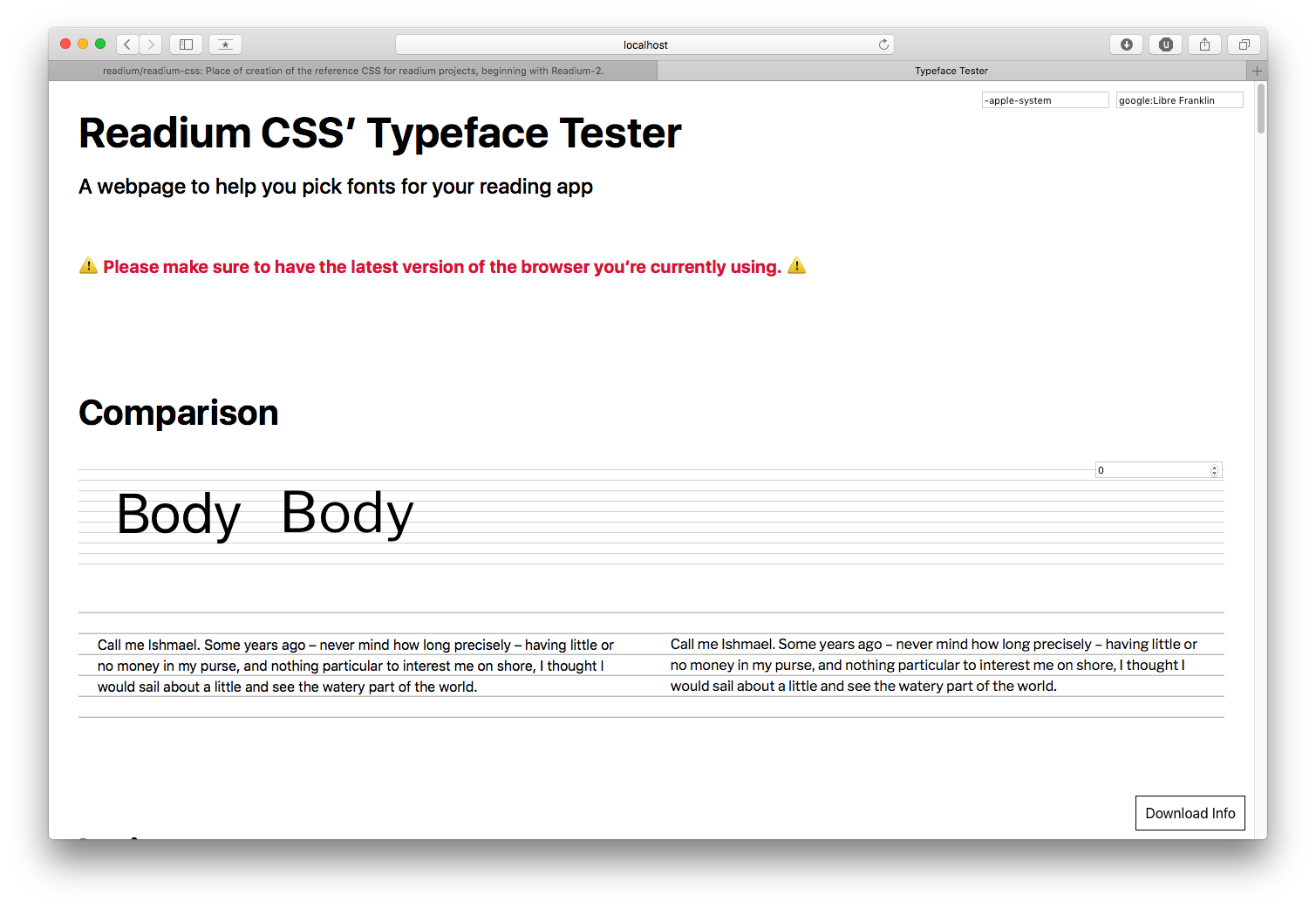
While we recommend using system fonts to get the best performance whenever possible, implementers might want to use Open Source Fonts to offer more choice to users. On the Android platform, for instance, system fonts are limited to one typeface per generic family (serif, sans-serif, fantasy, monospace, and cursive), which means implementers donāt get a lot of options out of the box.
Consequently, amongst the thousands of fonts available online, a pre-selection of 27 typefaces have been reviewed extensively. Those typefaces were selected based on multiple factors:
regular, italic, bold, bold italic) so that implementers donāt break authorsā expectations;Hereās the complete list of those 27 fonts:
Each of the 27 fonts has been undergoing tests in real rendering situations.
They were rendered on the Android, iOS, MacOS, and Windows platforms, using SD and HD displays when possible, in multiple browsers (Edge, Safari, Chrome, Firefox), and in different themes (none, sepia and night).
Then each font was:
It is important to state that implementers canāt really go wrong with those 27 fonts.
We sometimes forget that users canāt necessarily afford bleeding-edge technology, which is why it was important to review those fonts in various conditions.
The 12 recommended fonts are simply providing the best rendering in the worst situations possible (Windows ClearType on a mediocre screen), and the best language support as well. If you donāt have to support Windows, for instance, then you can try fonts which are not recommended.
For your information, here are the results for Windows ClearType rendering at 1em (or 100%).
An extended selection of 13 typefaces are recommended to offer implementers some flexibility. With an extended solution, it is likely that all apps leveraging Readium CSS wonāt end up using the same exact selection.
Note: Supported Languages focus on diacritics. Support for languages using the latin alphabet, like English, is implied.
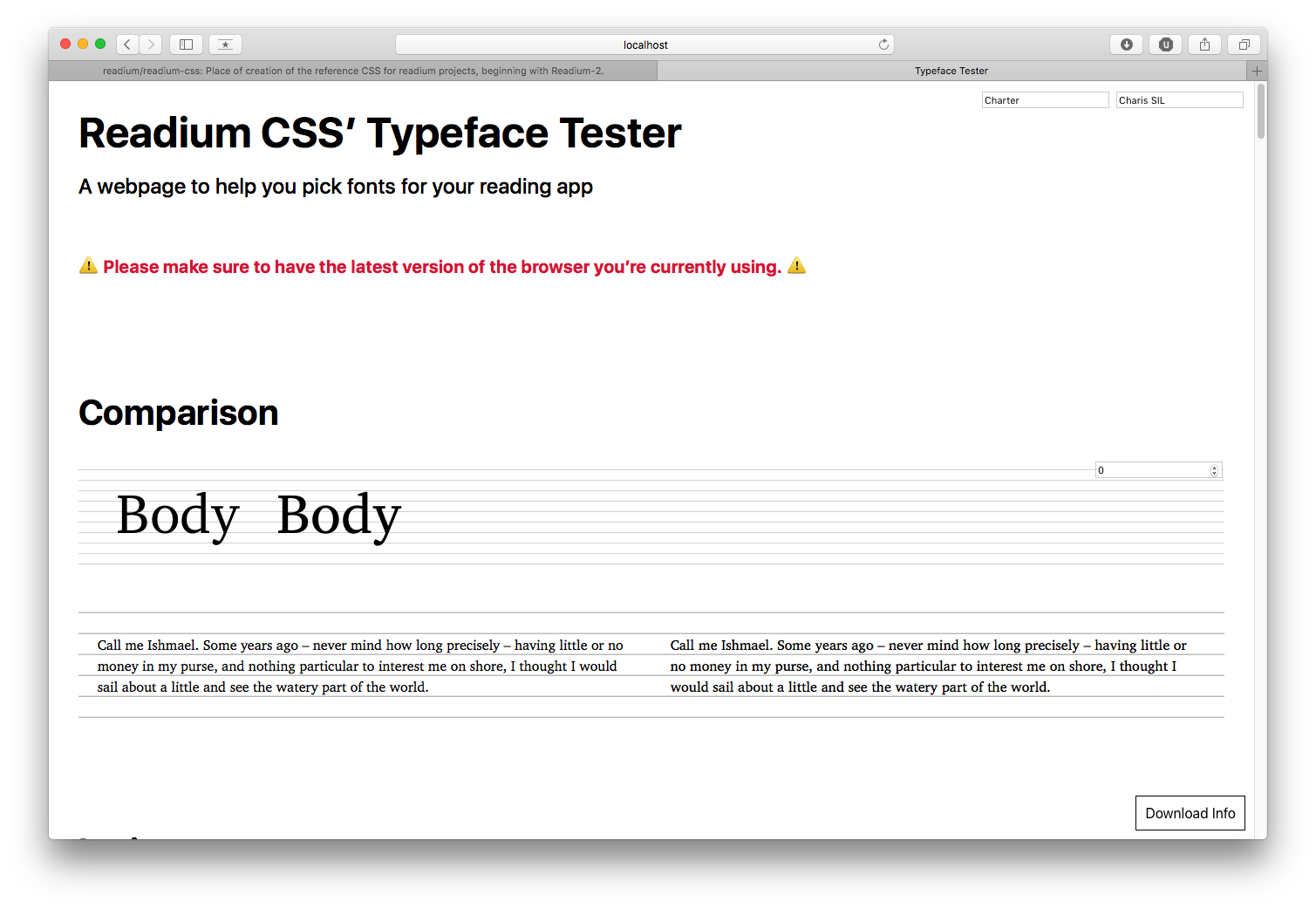
Supported Languages: Albanian, Bosnian, Czech, Danish, Dutch, Estonian, Finnish, French, German, Hungarian, Italian, Latvian, Lithuanian, Norwegian, Polish, Portuguese, Romanian, Slovak, Slovenian, Spanish, Swedish, Turkish, Cyrillic.
OpenType Features: none.
Variations: none.
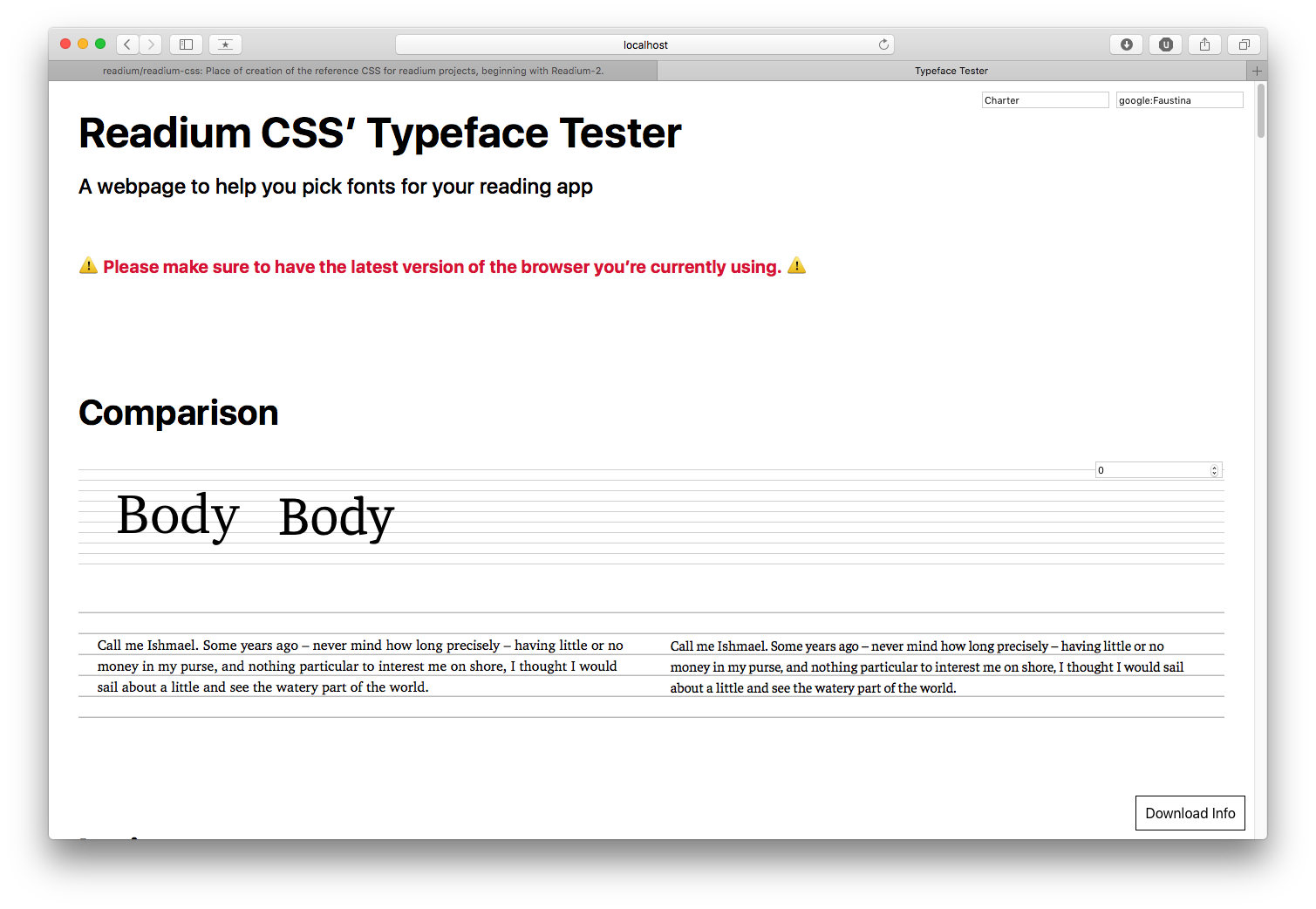
Supported Languages: Albanian, Bosnian, Czech, Danish, Dutch, Estonian, Finnish, French, German, Hungarian, Italian, Latvian, Lithuanian, Norwegian, Polish, Portuguese, Romanian, Slovak, Slovenian, Spanish, Swedish, Turkish.
OpenType Features: none.
Variations: weight (300ā800).
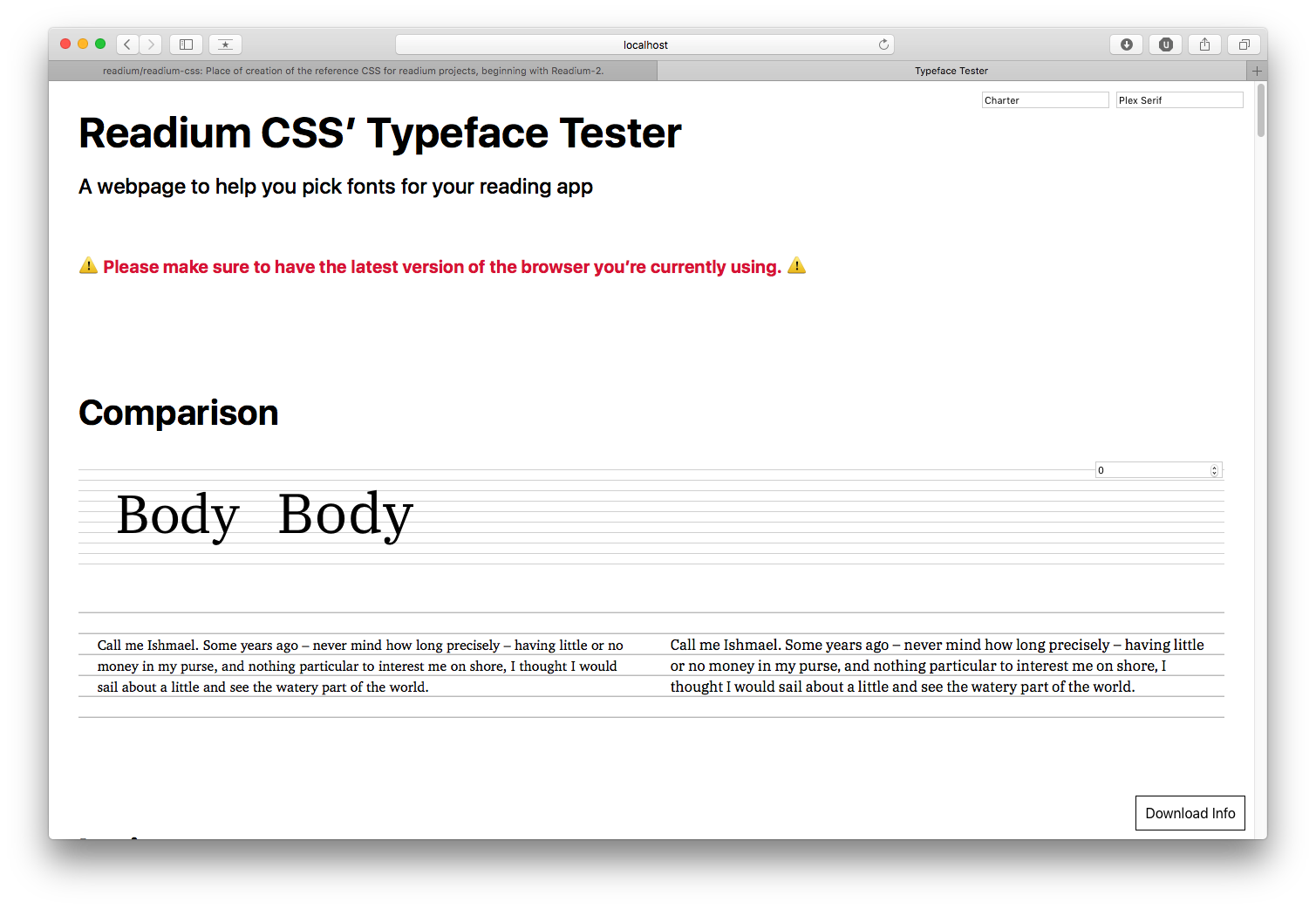
Supported Languages: Albanian, Bosnian, Czech, Danish, Dutch, Estonian, Finnish, French, German, Hungarian, Italian, Latvian, Lithuanian, Norwegian, Polish, Portuguese, Romanian, Slovak, Slovenian, Spanish, Swedish, Turkish.
OpenType Features: none.
Variations: none.
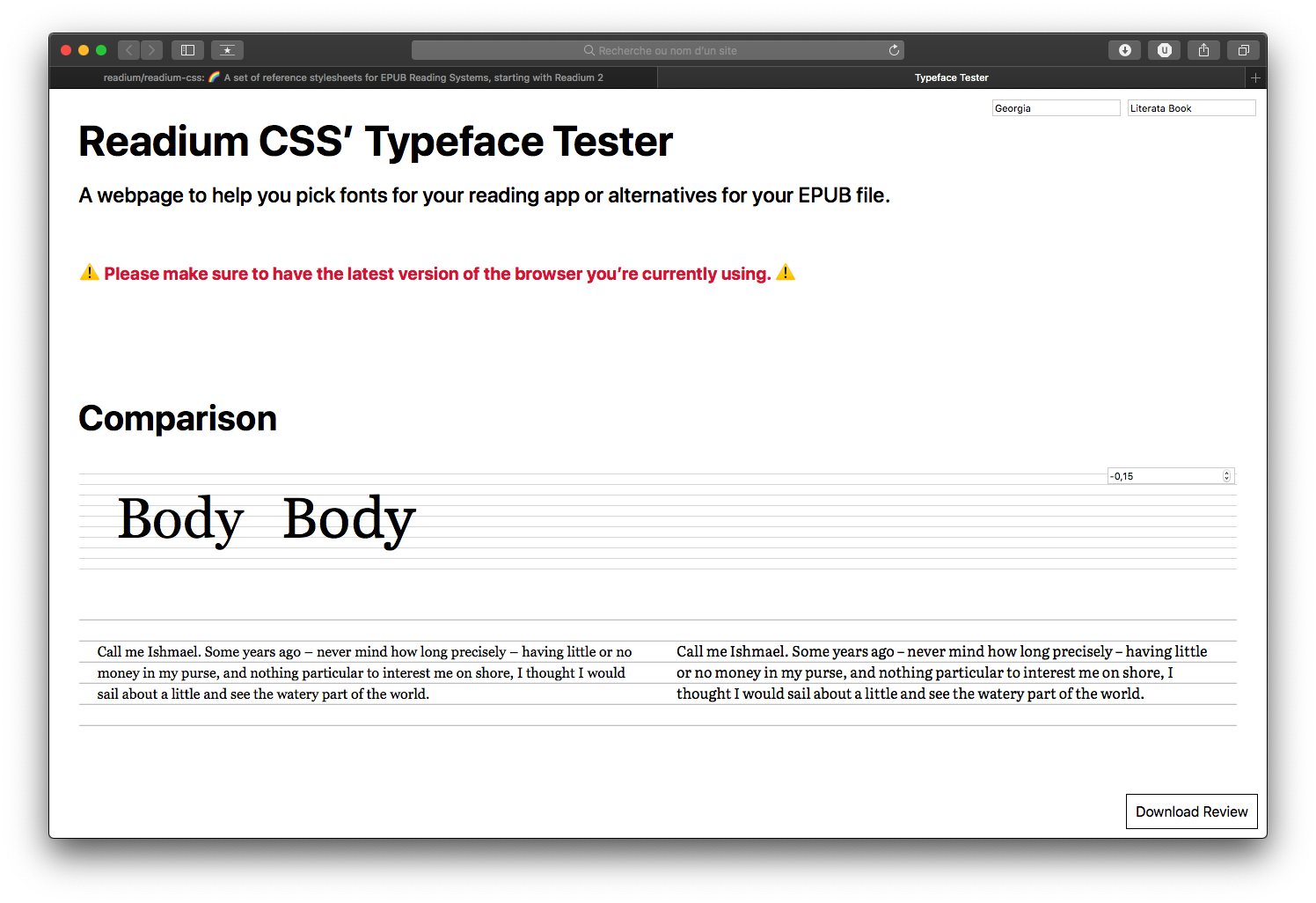
Supported Languages: Albanian, Bosnian, Czech, Danish, Dutch, Estonian, Finnish, French, German, Hungarian, Italian, Latvian, Lithuanian, Norwegian, Polish, Portuguese, Romanian, Slovak, Slovenian, Spanish, Swedish, Turkish, Cyrillic, Greek.
OpenType Features: small caps, numeric figure values, numeric spacing values.
Variations: optical sizing, weight (200ā900).
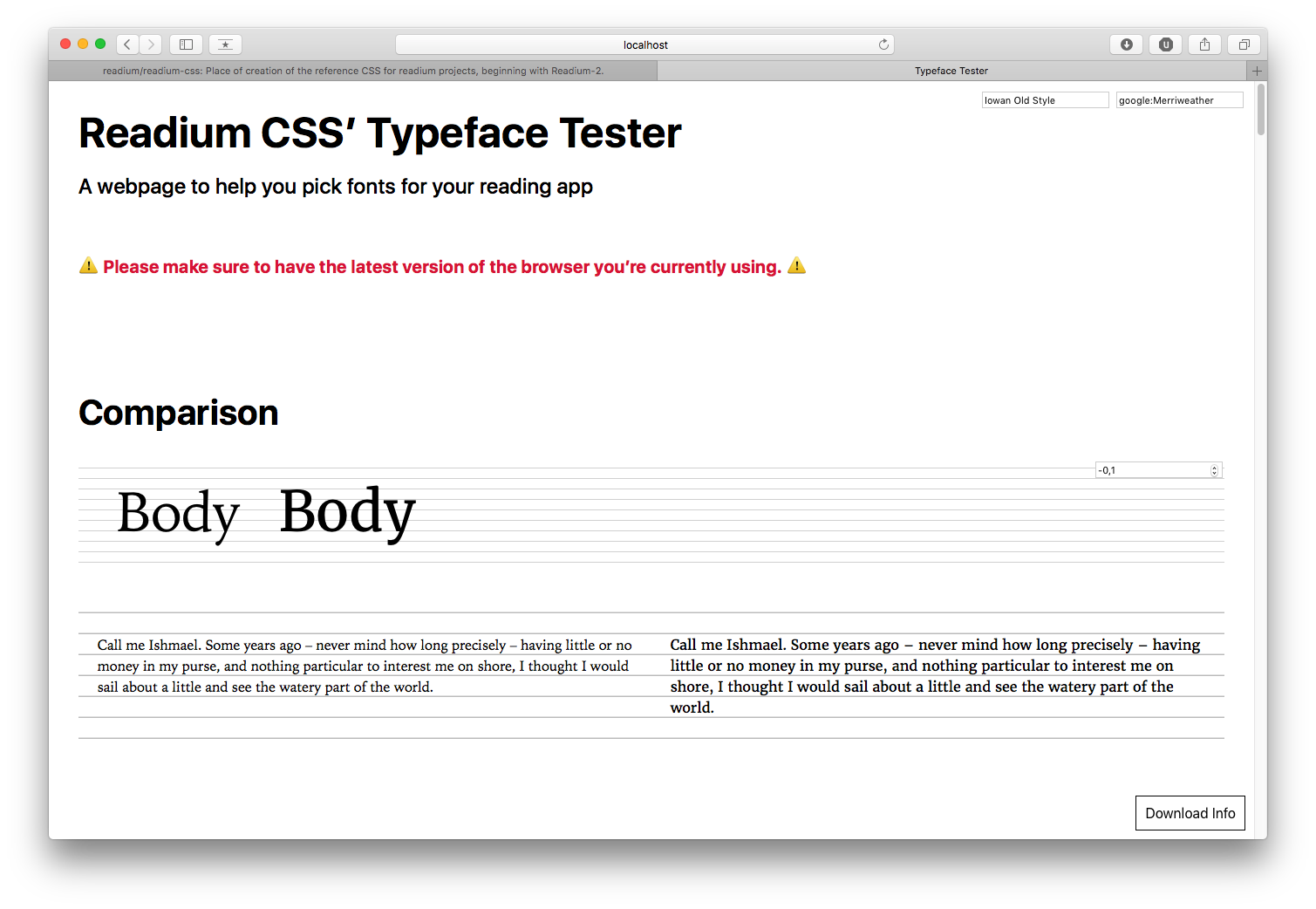
Supported Languages: Albanian, Bosnian, Czech, Danish, Dutch, Estonian, Finnish, French, German, Hungarian, Italian, Latvian, Lithuanian, Norwegian, Polish, Portuguese, Romanian, Slovak, Slovenian, Spanish, Swedish, Turkish, Cyrillic.
OpenType Features: none.
Variations: none.
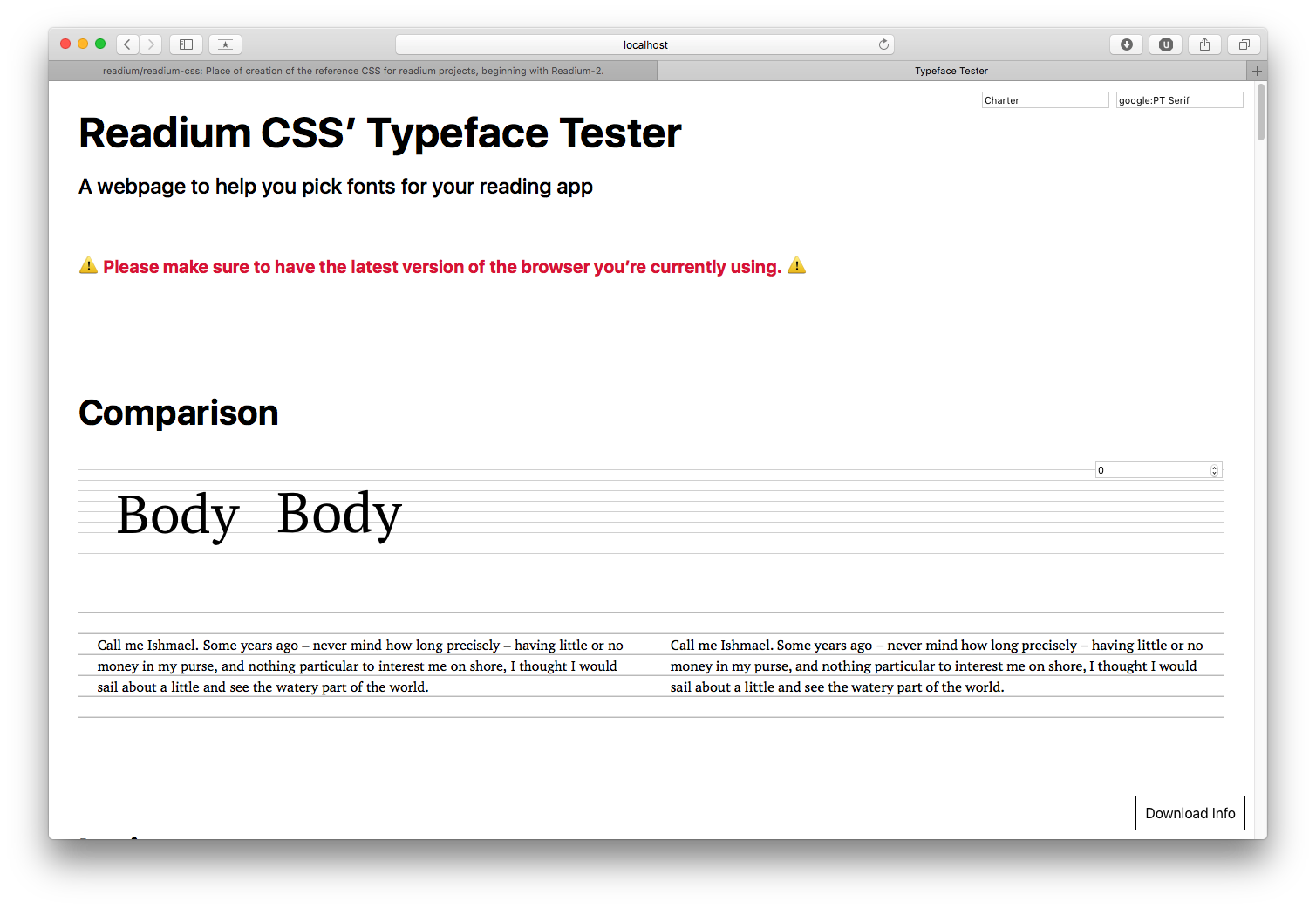
Global info:
Technical details:
Supported Languages: Albanian, Bosnian, Czech, Danish, Dutch, Estonian, Finnish, French, German, Hungarian, Italian, Latvian, Lithuanian, Norwegian, Polish, Portuguese, Romanian, Slovak, Slovenian, Spanish, Swedish, Turkish, Cyrillic.
OpenType Features: none.
Variations: none.
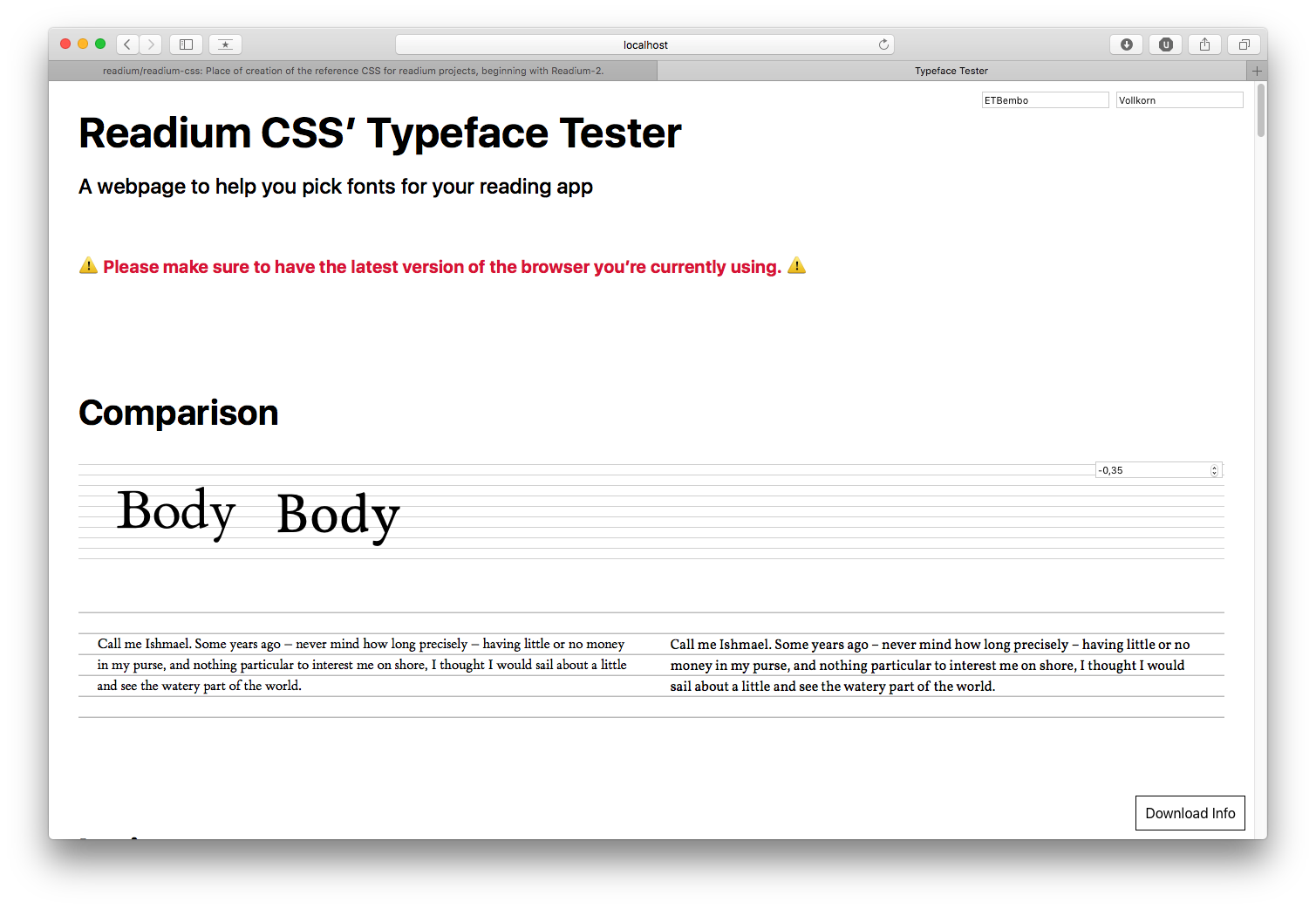
Global info:
Technical details:
Supported Languages: Albanian, Bosnian, Czech, Danish, Dutch, Estonian, Finnish, French, German, Hungarian, Italian, Latvian, Lithuanian, Norwegian, Polish, Portuguese, Romanian, Slovak, Slovenian, Spanish, Swedish, Turkish, Cyrillic.
OpenType Features: small caps, numeric figure values, numeric spacing values (and more).
Variations: weight (400ā900).
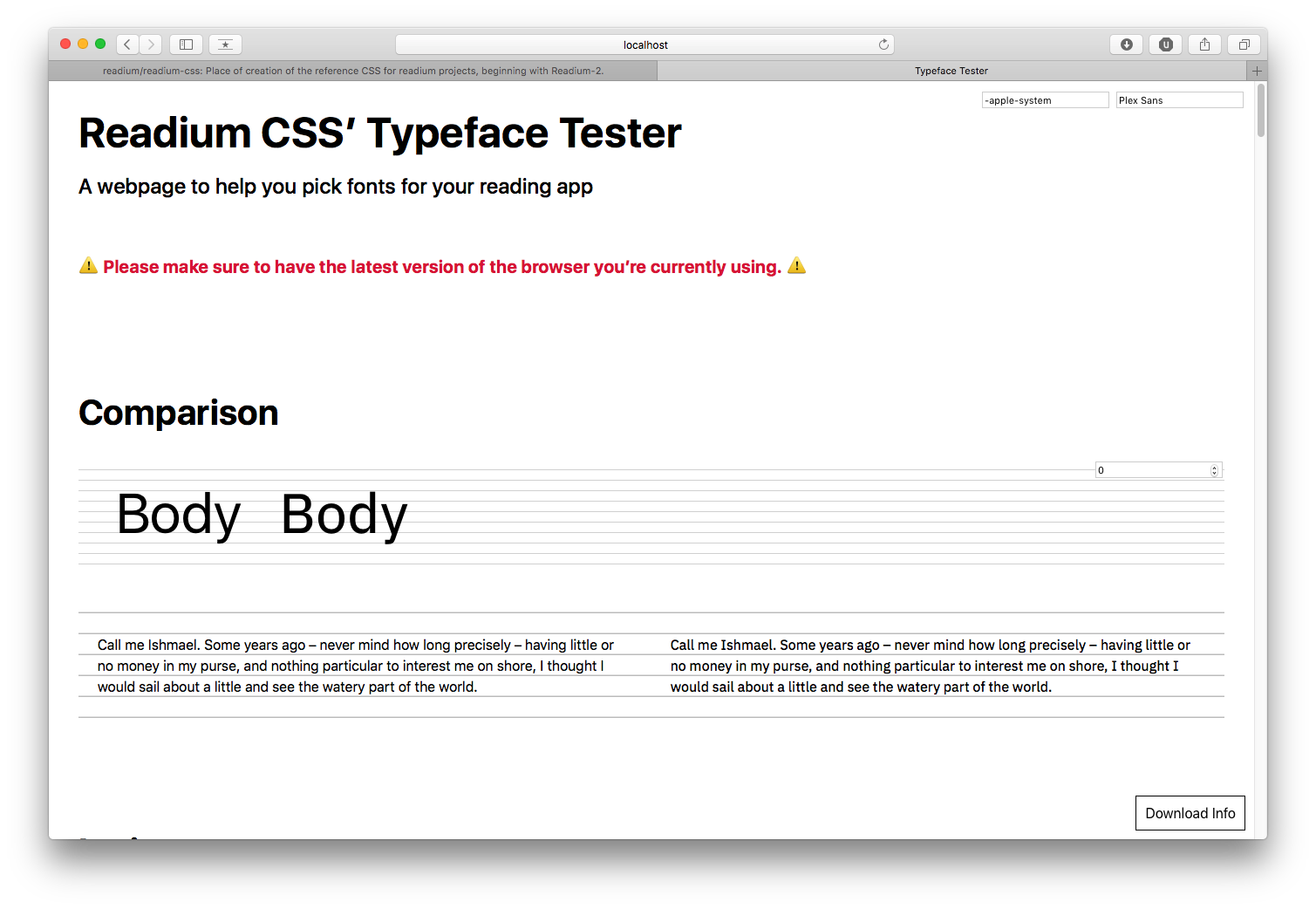
Global info:
Technical details:
Supported Languages: Albanian, Bosnian, Czech, Danish, Dutch, Estonian, Finnish, French, German, Hungarian, Italian, Latvian, Lithuanian, Norwegian, Polish, Portuguese, Romanian, Slovak, Slovenian, Spanish, Swedish, Turkish, Cyrillic, Greek.
OpenType Features: numeric figure values, numeric spacing values.
Variations: weight (100ā700), width (85ā100).
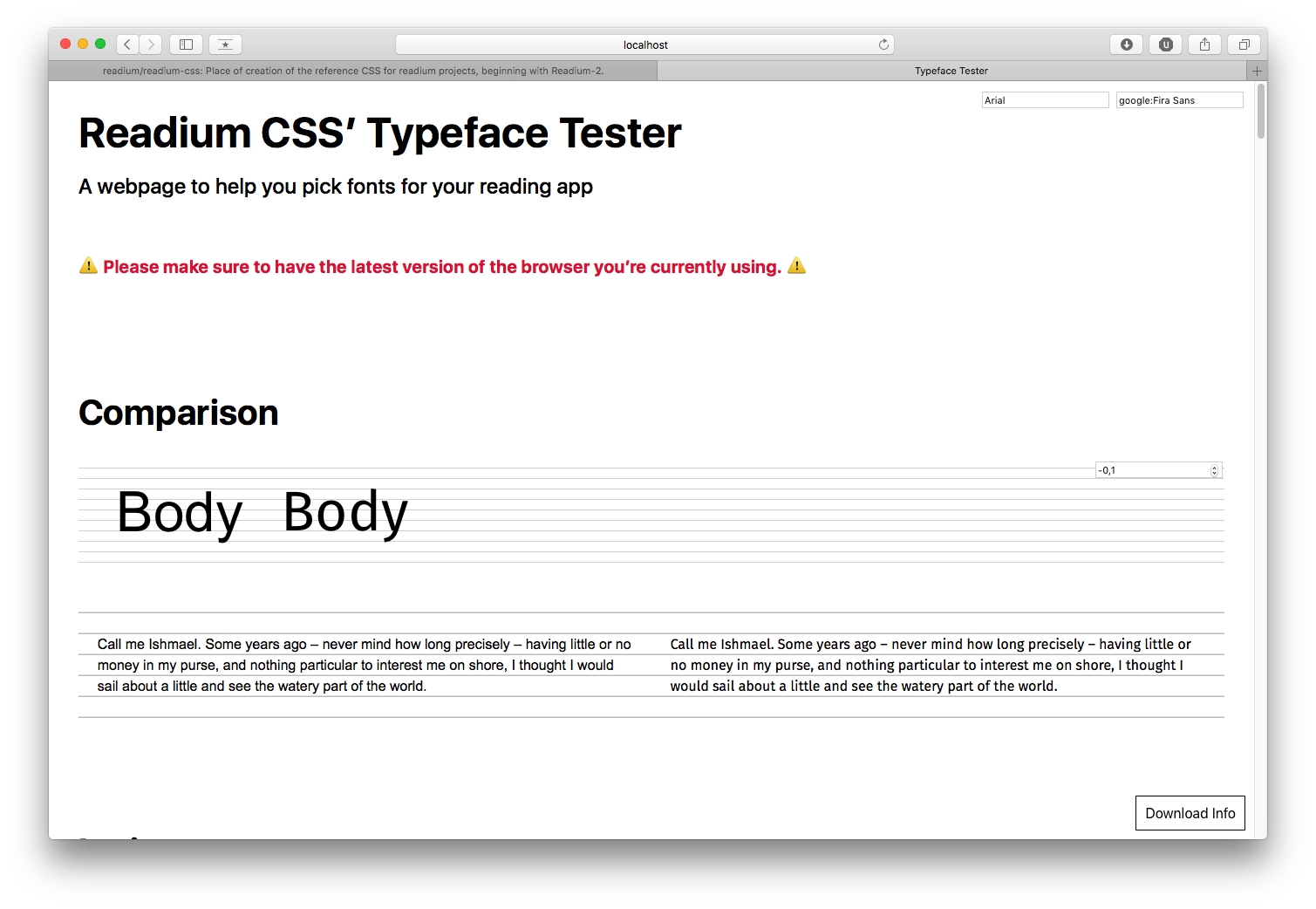
ReadiumCSS cannot ship with fonts as their path cannot be customized dynamically and would therefore require them to be embedded into every EPUB file read in your application.
But here is a list of fonts that can be used for accessibility purposes:
In addition to Google Noto Fonts, we can currently recommend: